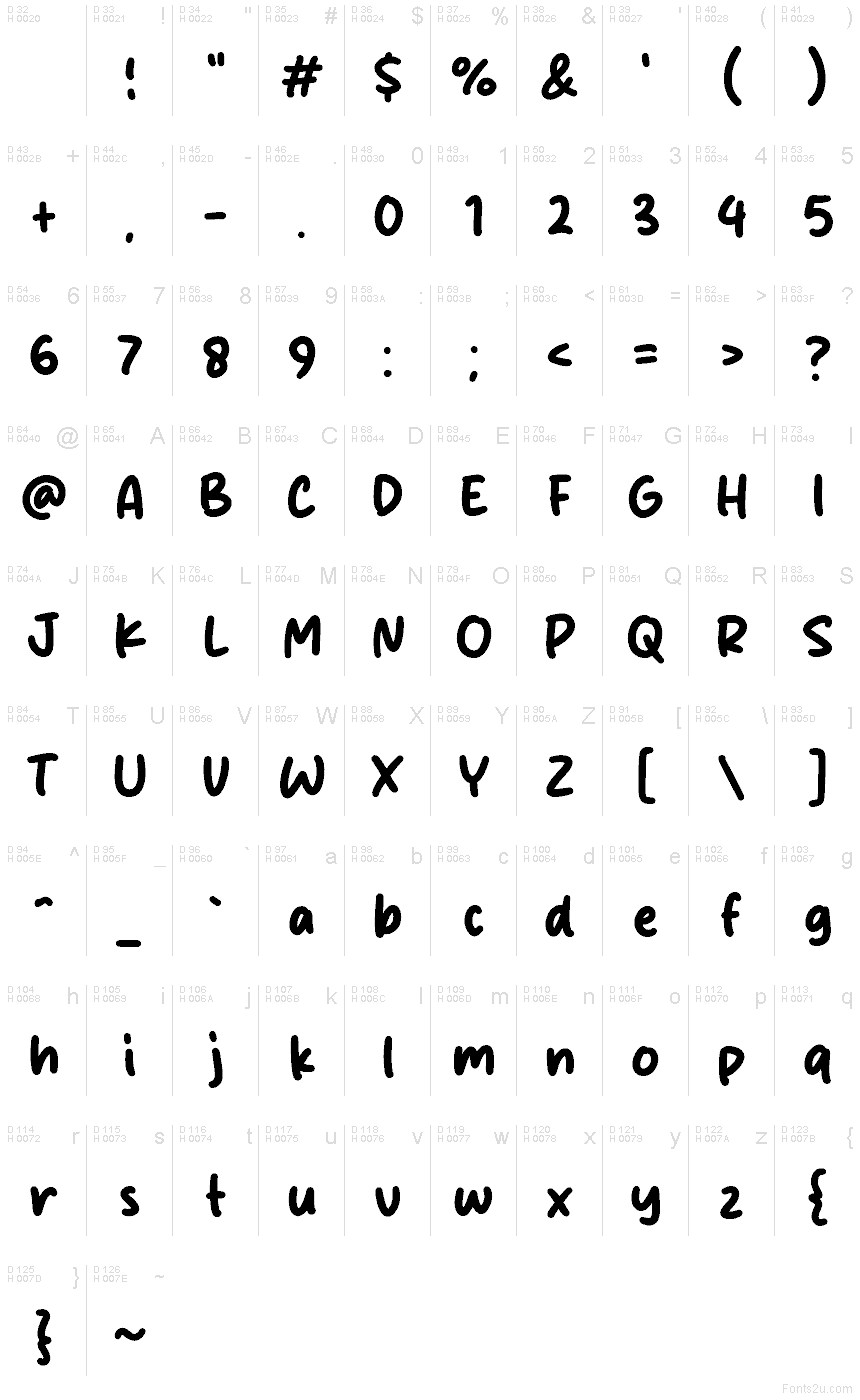
Wild Salmon
Wild Salmon font is a free handwritten font by Origin Type with a smooth, casual, and friendly look. Its organic style strikes the perfect balance between relaxed and approachable. Widely readable in smaller and bigger sizes, this display typography is devised to follow the latest industry standards as it offers an optimal on-screen legibility.
Whether you are working on food packaging designs or movie posters, Wild Salmon can deliver an eye-pleasing gentle appeal. Use it on invitation cards, letterhead texts, big signs, company slogans, logo design projects or website texts. It suits badges/insignia works like also all sorts of typographic artwork.